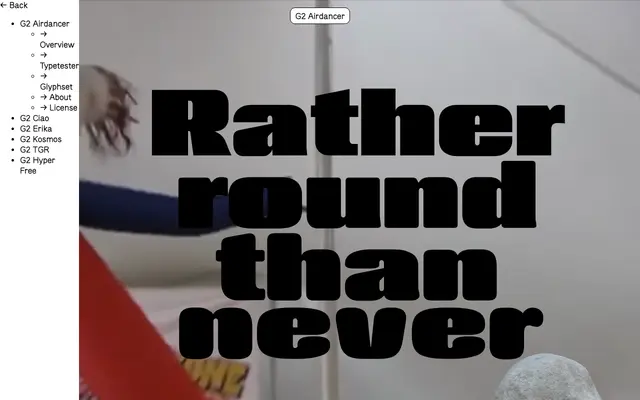
G2 Airdancer
Gruppo Due · Massimiliano Audretsch · 2024
A two-axis variable display sans with eighteen width-and-style combinations, originally designed for a 7-metre Airdancer installation at Karlsruhe University of Arts and Design.
Designed by Massimiliano Audretsch in 2024, this family spans three distinct sub-families — edgy, semi-round and round — each running across six widths from Compressed to Ultra-Expanded, all interchangeable by design. The two-axis variable font allows fluid transitions between width and corner treatment, making it well suited to large-format display and identity work where structural versatility matters. Its origins in a site-specific installation give it a spatial, performative character that sets it apart from off-the-shelf compressed grotesques.
A bold, compressed display sans-serif with formalist geometry, available in edgy, semi-round and round variants across multiple widths. The page explicitly frames it as a display sans with a technological rather than revivalist intent.